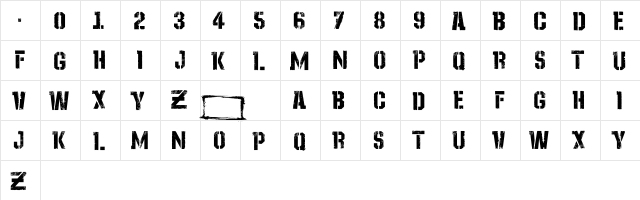
Stay_On_The_Ground_Grunge Regular
Design Context for Stay_On_The_Ground_Grunge Typeface
Stay_On_The_Ground_Grunge embraces imperfection — its rough, textured character adds raw authenticity to designs that want to feel lived-in and unconventional.
A strong fit for alternative music projects, graffiti-adjacent design, and anything that deliberately resists polish.
Pro Tip: Use Stay_On_The_Ground_Grunge at larger sizes where the texture and irregularity of each letterform can be clearly seen — it loses its character at small sizes.